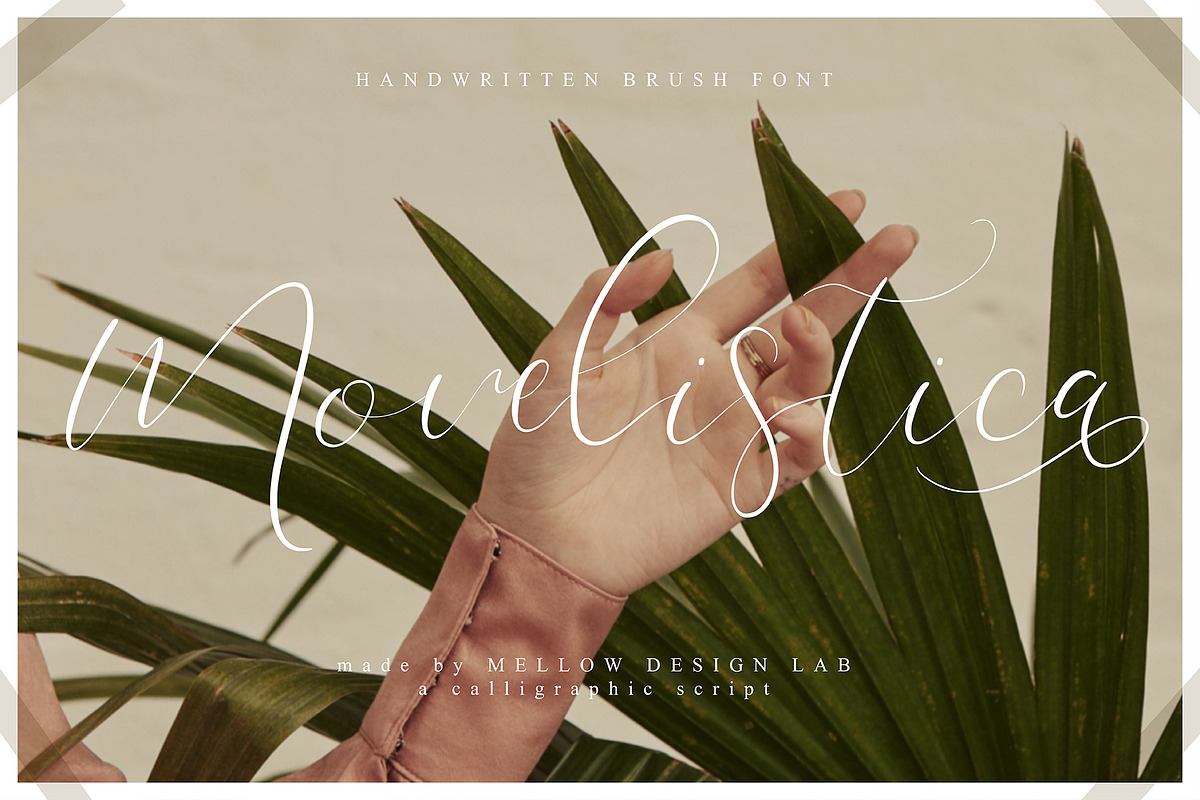
Movelistica Font Free Download is a modern, elegant script font that flows with sophistication and charm. With its fluid strokes and high-contrast lines, Movelistica is perfect for fashion logos, wedding invitations, product packaging, social media posts, and signature-style branding. It combines the beauty of calligraphy with a contemporary edge, making it ideal for high-end, stylish designs.
Designed with graceful curves and artistic flair, Movelistica Font Free Download stands out in both digital and print applications. Its dynamic rhythm and natural handwriting feel make it a go-to choice for projects that require elegance and personality. Whether you're crafting a luxury brand or a personal blog header, this font offers the perfect blend of polish and creativity.